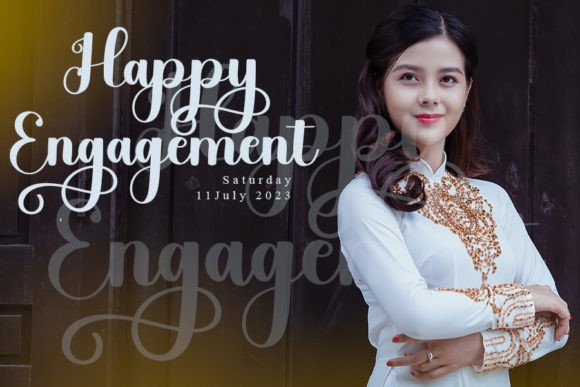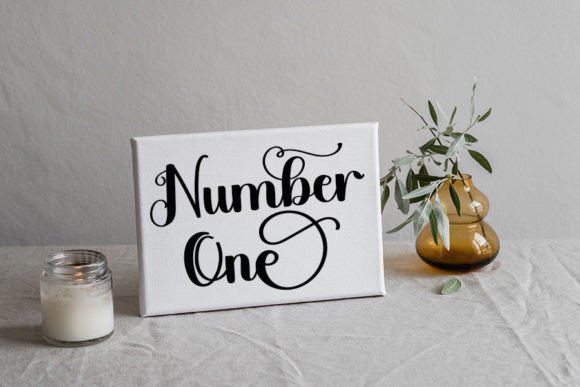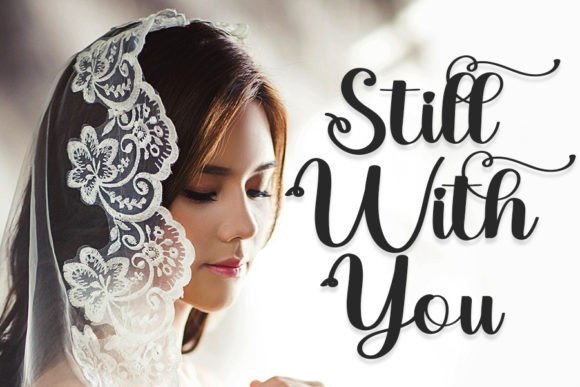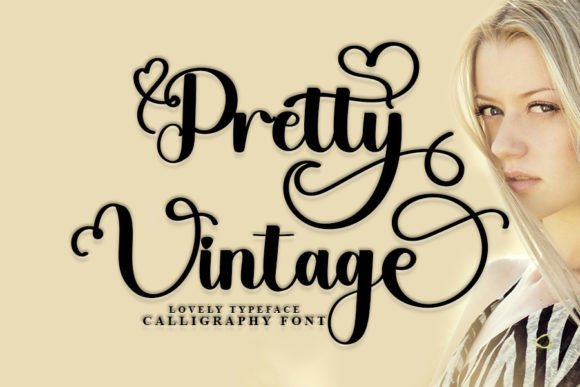
Introduction to Pretty Vintage Font
Pretty Vintage is a beautiful and refined handwritten font.
It has a classy, elegant, and modern look that can be used for logos, branding, invitations, stationery, wedding designs, social media posts, and much more This font is PUA encoded, which means you can access all of the glyphs and swashes with ease.
Key Features of Pretty Vintage Font
Why Choose Pretty Vintage Font?
Pretty Vintage Font offers exceptional quality and versatility, making it a valuable addition to your design toolkit. Whether you’re creating for personal projects or commercial use, Pretty Vintage Font delivers professional results.